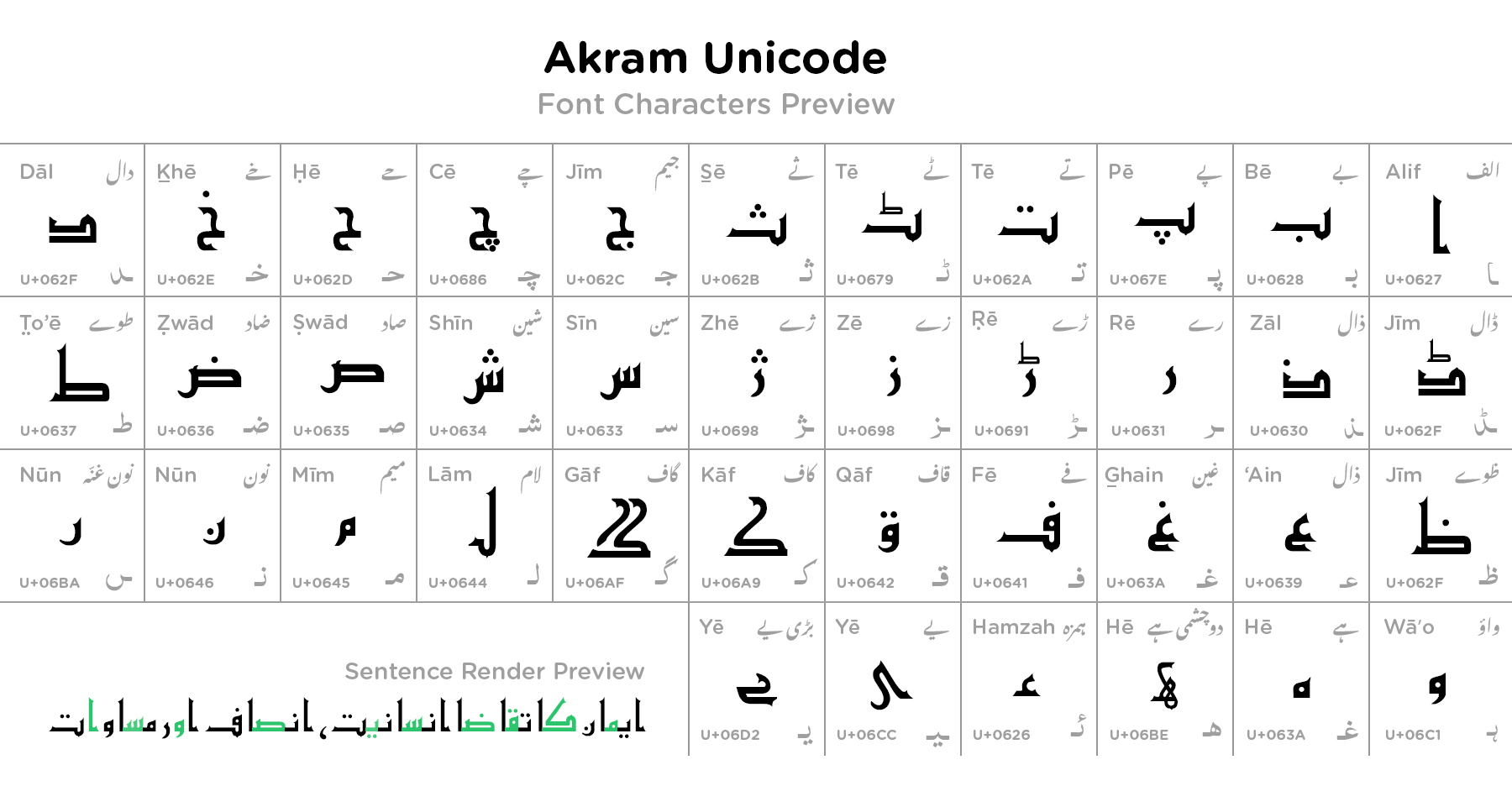
Akram Unicode is a TrueType decorative Arabic font that is known for its traditional yet intricate appearance. It was designed by type designer Syed Manzar Hasan Zaidi. It is a modern interpretation of Kufic script and was released on October 10, 2017, under the copyrights of Axis SoftMedia Pvt. Ltd., Mumbai, India. It has a vast character set of 444 and 497 glyphs. Compatible with various of the latest Unicode standards, its support goes beyond Arabic for Latin, Urdu, Greek, and more. Delving into the design elements of this ornamental font, the difference between thick and thin strokes is minimal, creating a more uniform and smooth appearance. The letters are wide and loosely spaced, creating an airier and more relaxed feel compared to tight letter spacing. Instead of being graceful and flowing, the curves have defined corners and straighter lines, often associated with modern or geometric styles. Moreover, the thickness is constant throughout, and the letters are bold and thick with intricate slithering movements like snakes in a few characters. This font is only perfect for short bursts of text rather than longer editorial blocks. So, you can use it to make impactful logos and signs or for branding purposes requiring a touch of heritage.